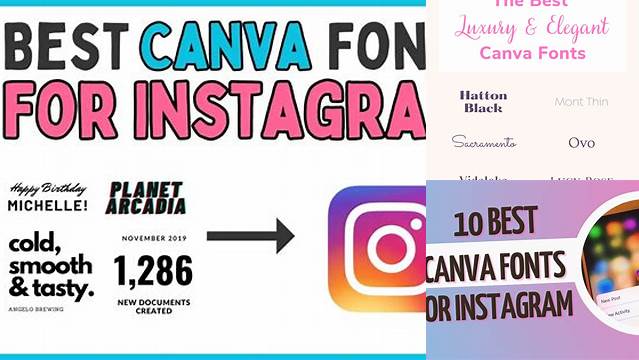
Best Canva Fonts For Instagram Posts: Top Picks
Choosing the right fonts for your Instagram posts is crucial for grabbing attention and conveying your message effectively, guys! With Canva offering a plethora of options, it can feel overwhelming to pick the perfect ones. So, let's dive into the best Canva fonts for Instagram posts that will make your content pop and engage your audience. We'll explore a variety of styles, from elegant serifs to modern sans-serifs, and discuss how to use them to enhance your brand's visual identity. Get ready to transform your Instagram game with these font recommendations!
1. Elegant Serif Fonts for Instagram
When you're aiming for a touch of sophistication and class on your Instagram, elegant serif fonts are your go-to. Think of fonts like Playfair Display, which exudes a classic, timeless feel, or Lora, which brings a subtle, modern twist to the serif category. These best Canva fonts for Instagram posts are perfect for brands that want to convey a sense of luxury, professionalism, or tradition. Imagine using Playfair Display for a quote graphic or a product announcement – it immediately elevates the visual appeal. Lora, on the other hand, works beautifully for longer captions or story posts, ensuring readability while maintaining elegance. Don't be afraid to experiment with different weights and sizes to see what best suits your brand's aesthetic. Remember, the key is to balance elegance with readability, so your message shines through. Pairing these serifs with a clean, minimalist background can further enhance their impact, creating a visually stunning and engaging post.
2. Modern Sans-Serif Fonts for Instagram
For a clean, contemporary look, you can't go wrong with modern sans-serif fonts. These best Canva fonts for Instagram posts are all about simplicity and readability, making them ideal for brands that want to project a fresh, approachable image. Fonts like Montserrat and Open Sans are incredibly versatile, working well for everything from captions and body text to headlines and call-to-actions. Montserrat, with its geometric forms, offers a polished, professional vibe, while Open Sans is known for its clarity and readability across various screen sizes. Using these fonts can give your Instagram feed a consistent, cohesive feel, which is essential for building brand recognition. Think about how a bold Montserrat headline can instantly grab attention, or how the clean lines of Open Sans can make your captions easy to read and digest. Experiment with different font weights and sizes to create visual hierarchy and emphasize key messages. Pair them with vibrant colors and eye-catching imagery to make your posts stand out in the crowded Instagram landscape. Sans-serif fonts are your secret weapon for a modern, engaging, and easily digestible Instagram presence.
3. Bold Fonts to Grab Attention
Need to make a statement? Bold fonts are your best friend! These attention-grabbing typefaces are perfect for headlines, announcements, and anything you want to emphasize on your Instagram feed. Think of fonts like Bebas Neue, a tall and impactful sans-serif, or Montserrat Black, the extra-bold version of the already popular Montserrat. These best Canva fonts for Instagram posts demand attention and can instantly add a punch to your visuals. Imagine using Bebas Neue for a sale announcement or Montserrat Black for a motivational quote – they'll jump off the screen and grab your audience's attention. Bold fonts work wonders when paired with a contrasting background, creating a visual impact that's hard to ignore. However, it's crucial to use them sparingly. Overusing bold fonts can make your designs feel cluttered and overwhelming. Instead, use them strategically to highlight the most important elements of your post, such as a headline or a call-to-action. Remember, the goal is to draw the eye, not overwhelm it. When used effectively, bold fonts can be a game-changer for your Instagram engagement.
4. Script Fonts for a Personal Touch
If you're aiming to add a personal and whimsical touch to your Instagram posts, script fonts are the way to go. These fonts mimic handwriting, giving your designs a warm, authentic feel. Think of fonts like Pacifico, a flowing and friendly script, or Playlist Script, a more modern and edgy option. These best Canva fonts for Instagram posts are perfect for showcasing your brand's personality and creating a connection with your audience. Imagine using Pacifico for a handwritten quote or Playlist Script for a behind-the-scenes announcement – they add a human element that can resonate with your followers. However, script fonts can sometimes be tricky to read, especially in smaller sizes. That's why it's essential to use them sparingly and strategically. Pair them with a clear, legible sans-serif font for body text to ensure readability. Also, consider the background – a clean, uncluttered background will allow your script font to shine. When used thoughtfully, script fonts can inject personality and charm into your Instagram feed, making your brand feel more relatable and approachable.
5. Unique Canva Font Pairings
One of the secrets to creating visually appealing Instagram posts is mastering the art of font pairing. Combining different fonts can create a dynamic and engaging look, but it's crucial to do it right. The goal is to create contrast and harmony, not conflict. A classic pairing is a bold sans-serif for headlines with a legible serif for body text, such as Montserrat and Lora. This combination offers a balance of modernity and elegance, making your content both eye-catching and easy to read. Another great option is pairing a script font with a clean sans-serif, like Pacifico and Open Sans. This creates a playful yet professional vibe, perfect for brands that want to convey a personal touch while maintaining clarity. When experimenting with font pairings, consider the mood you want to evoke. A combination of two sans-serif fonts, like Montserrat and Lato, can create a sleek, contemporary feel, while pairing a bold font like Bebas Neue with a simple serif can add a touch of drama. The best Canva fonts for Instagram posts often involve a thoughtful combination of two typefaces that complement each other. Don't be afraid to try different pairings to find what best represents your brand's personality and message. Remember, the key is to create a visual hierarchy that guides the viewer's eye and makes your content stand out.
6. Best Fonts for Instagram Stories
Instagram Stories are a fast-paced medium, so your fonts need to be both attention-grabbing and easy to read. The built-in fonts in Instagram Stories offer a variety of styles, but you can also create custom graphics in Canva with your brand fonts and then upload them. Some of the best Canva fonts for Instagram posts that translate well to Stories include Montserrat for headlines, Open Sans for captions, and Bebas Neue for bold announcements. These fonts are legible even on small screens and in fast-moving content. When using fonts in Stories, consider the background and the overall design. A clean, uncluttered background will make your text stand out, while using contrasting colors can improve readability. Animation and movement can also enhance the impact of your fonts. Try using animated text effects or incorporating your fonts into dynamic graphics to capture your audience's attention. Remember, Stories are all about capturing the moment and engaging your followers in real-time, so your fonts should reflect that energy. Keep it concise, keep it clear, and keep it visually appealing to make your Instagram Stories a success.
7. Top Fonts for Instagram Bio
Your Instagram bio is like your digital business card, so choosing the right fonts can make a big difference in how you present yourself. While Instagram limits font choices within the bio itself, you can create a visually appealing bio using symbols, emojis, and strategic formatting. However, you can use Canva to create a bio image or highlight cover with custom fonts that reflect your brand's personality. Think of using a bold sans-serif like Montserrat to make your name or brand name stand out, or a script font like Pacifico to add a touch of personality. The best Canva fonts for Instagram posts in the bio context are those that are legible and align with your overall aesthetic. Your bio should be concise and easy to read, so choose fonts that are clear and don't overwhelm the limited space. Consider using a consistent font style across your profile, from your bio image to your highlight covers, to create a cohesive brand identity. Remember, your bio is often the first impression people have of your brand, so make it count with thoughtful font choices and a clear, engaging message.
8. Fonts that Reflect Your Brand Personality
The fonts you choose should be an extension of your brand's personality. Are you aiming for a playful, approachable vibe? Or a sophisticated, professional image? The right fonts can help you convey the right message. If your brand is fun and energetic, consider using a bold, playful sans-serif or a quirky script font. These fonts can inject personality into your visuals and make your brand feel more relatable. For a more sophisticated brand, elegant serif fonts or clean, modern sans-serifs are a great choice. These fonts convey professionalism and attention to detail, which can build trust and credibility with your audience. When selecting fonts, consider your target audience and the overall tone you want to set. The best Canva fonts for Instagram posts are those that resonate with your audience and align with your brand values. Consistency is key, so choose a font palette that reflects your brand and use it consistently across all your Instagram content. This will help you build a recognizable brand identity and create a cohesive visual experience for your followers. Think of your fonts as part of your brand's voice – they should speak to your audience in a way that's authentic and engaging.
9. How to Pair Serif and Sans-Serif Fonts
Pairing serif and sans-serif fonts is a classic technique for creating visually balanced and engaging designs. The contrast between these two font styles can add depth and interest to your Instagram posts, but it's crucial to do it right. The key is to choose fonts that complement each other, creating a harmonious and readable design. A common approach is to use a bold sans-serif for headlines and a legible serif for body text. This combination creates a clear visual hierarchy, guiding the viewer's eye and making your message easy to digest. For example, pairing Montserrat (sans-serif) with Lora (serif) offers a balance of modernity and elegance. Alternatively, you can use a serif for headlines and a sans-serif for body text, but this approach can sometimes feel less contemporary. When choosing your font pairings, consider the weight and style of each font. Avoid pairing two fonts that are too similar, as this can create a visually dull effect. The best Canva fonts for Instagram posts often involve a thoughtful mix of serif and sans-serif styles that work together to enhance your brand's message. Experiment with different pairings to find what best suits your aesthetic and creates the desired visual impact.
10. Using Canva's Font Combination Templates
Canva offers a treasure trove of font combination templates that can take the guesswork out of font pairing. These templates feature pre-selected font combinations that are designed to work harmoniously together, saving you time and effort. Whether you're looking for a classic serif-sans-serif pairing, a modern sans-serif duo, or a playful script-sans-serif combination, Canva has a template for you. These templates are a great starting point for your designs, but you can also customize them to fit your brand's unique personality. Feel free to adjust the font sizes, weights, and colors to create a look that's truly your own. Using Canva's font combination templates is a smart way to ensure your designs are visually balanced and engaging. They're also a fantastic resource for learning about font pairing principles. By exploring these templates, you can gain a better understanding of how different fonts work together and develop your own eye for font combinations. The best Canva fonts for Instagram posts often come from these expertly curated templates, giving your designs a professional and polished feel. So, dive in and explore the possibilities!